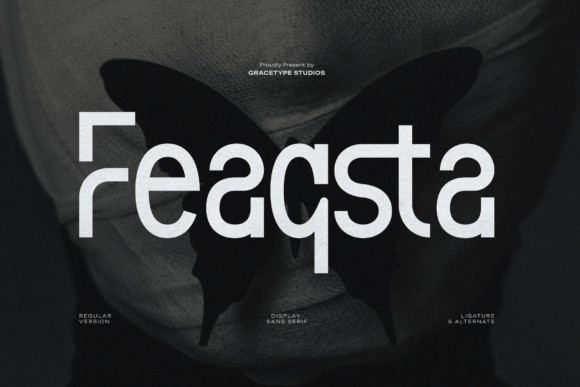
Breaking the Mold with Feaqsta Font
Have you ever been stuck in a design rut, searching for that one typeface that elevates your entire project? I know I have. It’s like hitting the jackpot when you stumble upon a font that perfectly captures the essence of your vision. For me, that font is Feaqsta – an ultra-modern display sans serif that’s been revolutionizing the design world with its bold, conceptual letterforms.
Designed for high-impact visual statements, Feaqsta Font is the perfect tool for designers who want to make a lasting impression. Its clean, geometric lines and striking cuts create a luxurious and future-forward personality that’s perfect for high-end fashion branding, editorial design, and luxury packaging. With its PUA-encoded features, you’ll have effortless access to all glyphs, swashes, and alternate characters, giving you the creative freedom to push the boundaries of design.
Feaqsta Font Key Features
- Font Family: Feaqsta is a modern sans-serif font family with 12 styles, including regular, bold, italic, and bold-italic.
- Unique Characteristics: Feaqsta features a unique blend of geometric and organic elements, resulting in a clean and modern aesthetic.
- Language Support: Supports over 200 languages, including Latin, Cyrillic, Greek, and many others, making it a versatile choice for global applications.
Feaqsta Font Review
Overall, I’d say Feaqsta Font is a fun and quirky addition to any design project. ✨ The unique letterforms and playful character set make it perfect for branding and advertising materials. ✨ I particularly enjoy the bold and confident feel it gives off, which works well for products that need to stand out from the crowd. ✨
However, there are some limitations to consider: ⚠️ The font is not suitable for long blocks of text, as the irregular shapes can make it difficult to read. ⚠️ Additionally, some users may find the font too loud or overwhelming, so it’s essential to use it judiciously. ⚠️
Here are some specific pros and cons to keep in mind:
- ✨ Great for branding and advertising materials
- ✨ Unique and playful character set
- ✨ Bold and confident feel
- ⚠️ Not suitable for long blocks of text
- ⚠️ May be too loud or overwhelming for some users
Overall, I think Feaqsta Font is a great choice for designers who want to add some personality to their projects. Just be mindful of its limitations and use it thoughtfully.
For a unique look, combine Feaqsta Font with other creative elements, such as bold shapes and bright colors, to create an eye-catching design.
To get the most out of Feaqsta Font, experiment with layer styles and blending modes to create a professional-looking design.
For a visually appealing presentation, use Feaqsta Font in combination with bold headings and creative graphics.
Feaqsta Font is ideal for creative projects, such as:
• Social media graphics
• Infographics
• Brochures and flyers
• Advertising materials
Alternatives to Feaqsta Font for Designers
The Great Vibes Font is a modern, cursive script font ideal for creating a friendly and approachable atmosphere. It’s perfect for use in titles, headings, and quotes. When to use: For projects requiring a casual and elegant feel.
Great Vibes Font differs from Feaqsta Font in its more refined and polished look. While Feaqsta Font has a more energetic and playful vibe, Great Vibes Font is more sophisticated and suitable for a wider range of applications.
The Carolyna Pro Font is a modern sans-serif font designed for use in digital media. It features a clean and minimalist design, making it ideal for use in titles, headings, and body text. When to use: For projects requiring a clean and professional look.
Carolyna Pro Font differs from Feaqsta Font in its simplicity and lack of flair. While Feaqsta Font has a more decorative and attention-grabbing quality, Carolyna Pro Font is more understated and suitable for use in a variety of contexts.